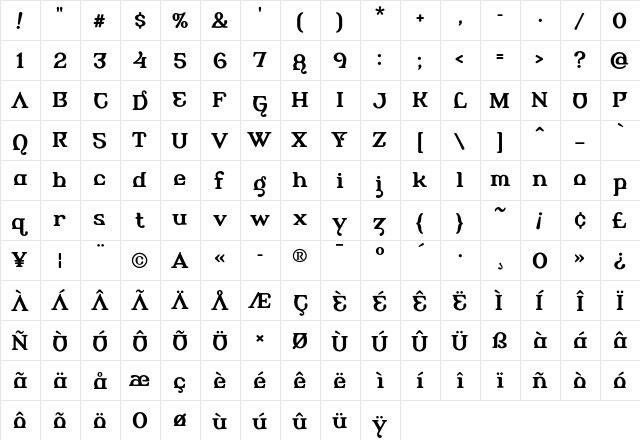
AlembicBeta-BoldTwo Regular
Design Context for AlembicBeta-BoldTwo Typeface
AlembicBeta-BoldTwo is a composed and adaptable typeface that performs quietly and consistently across a wide range of design contexts. Its bold stroke weight gives it real presence on the page.